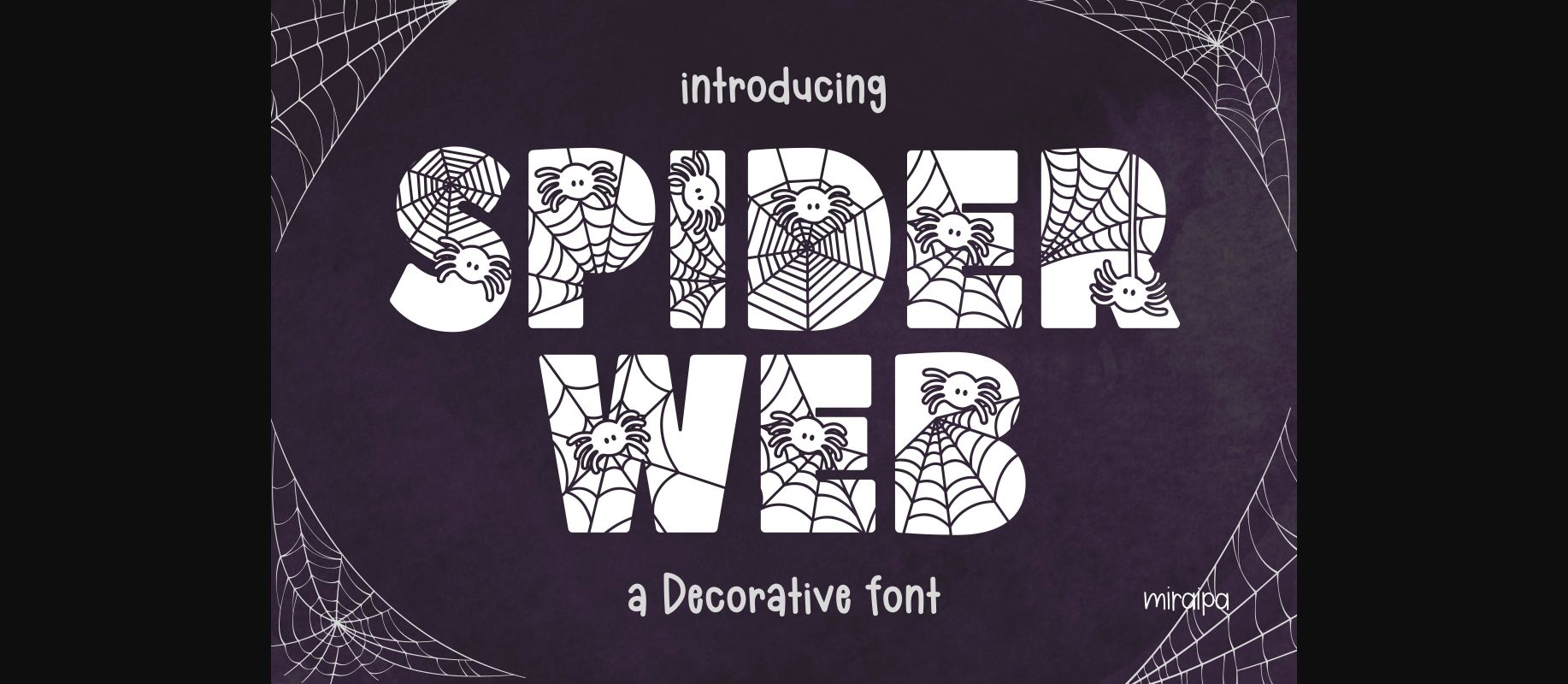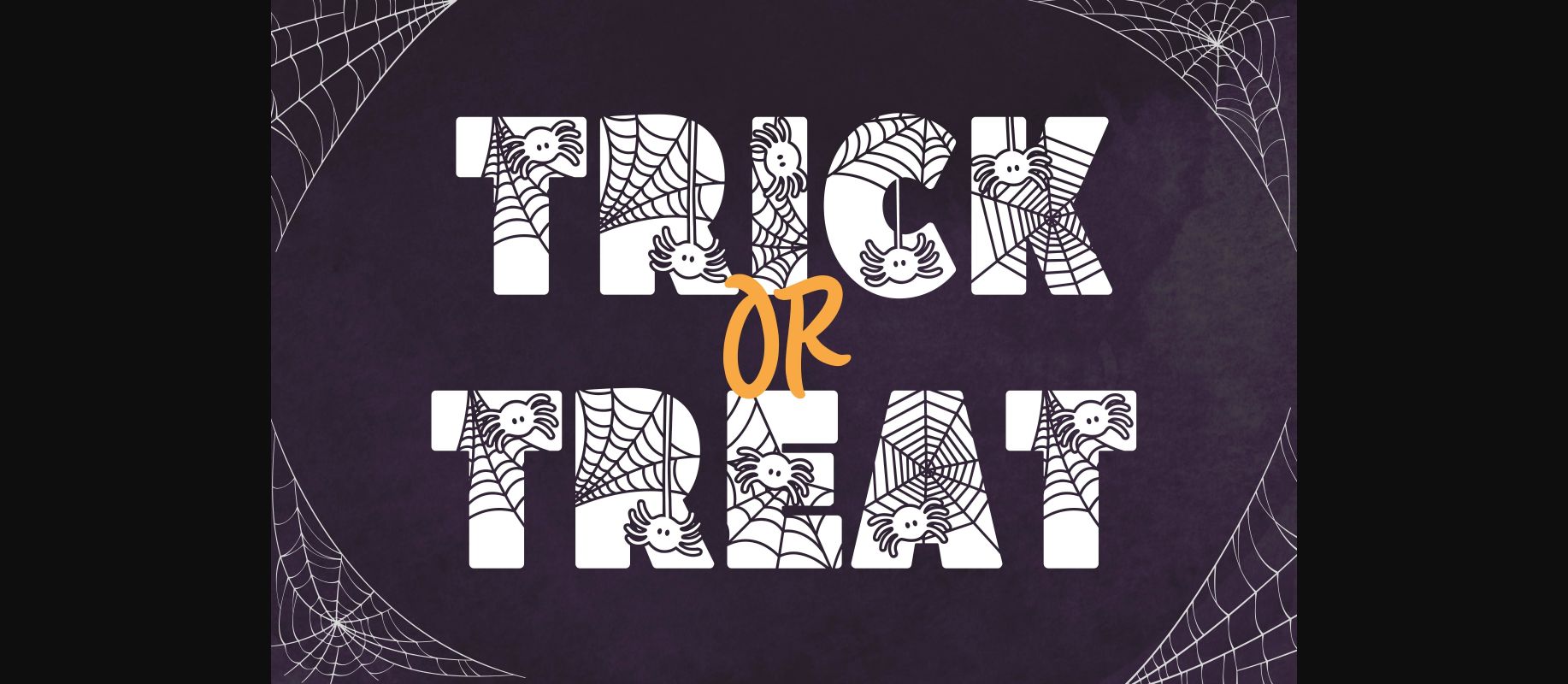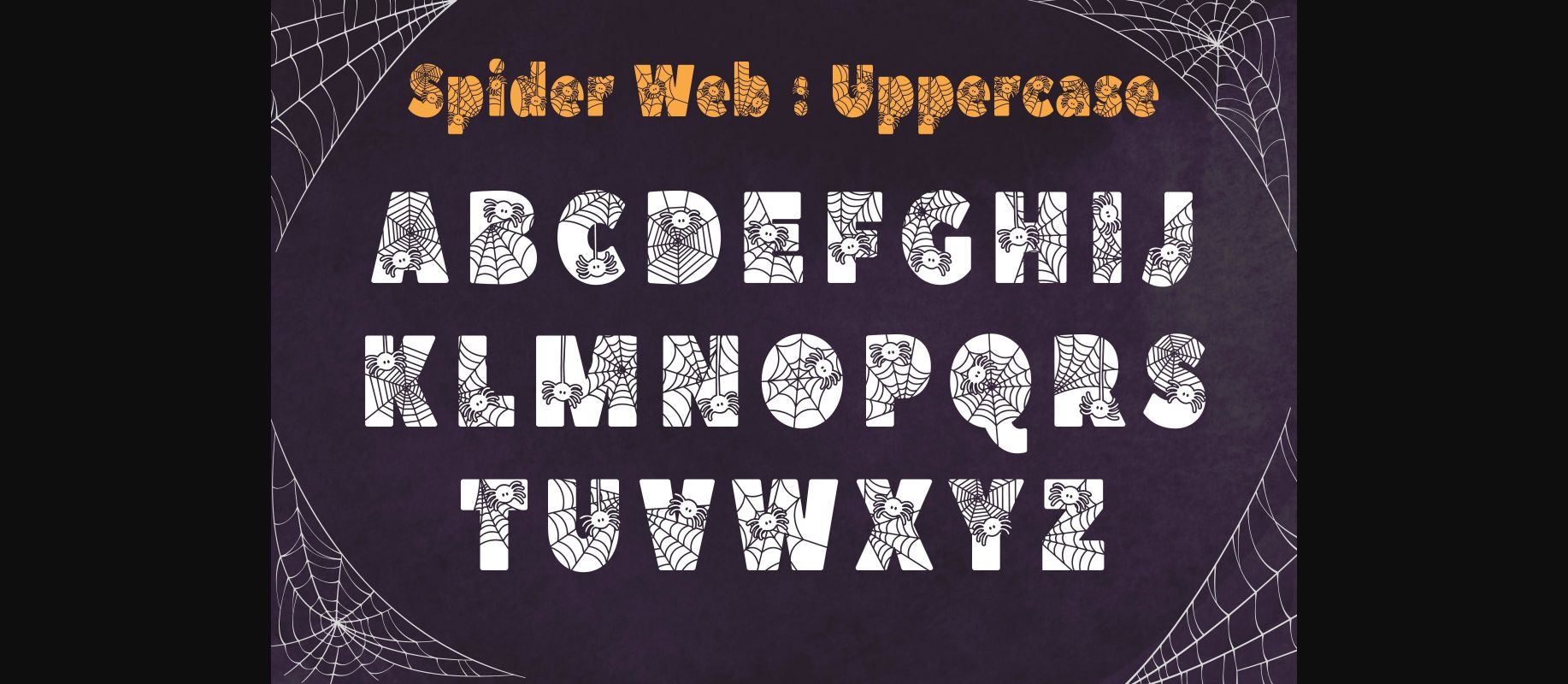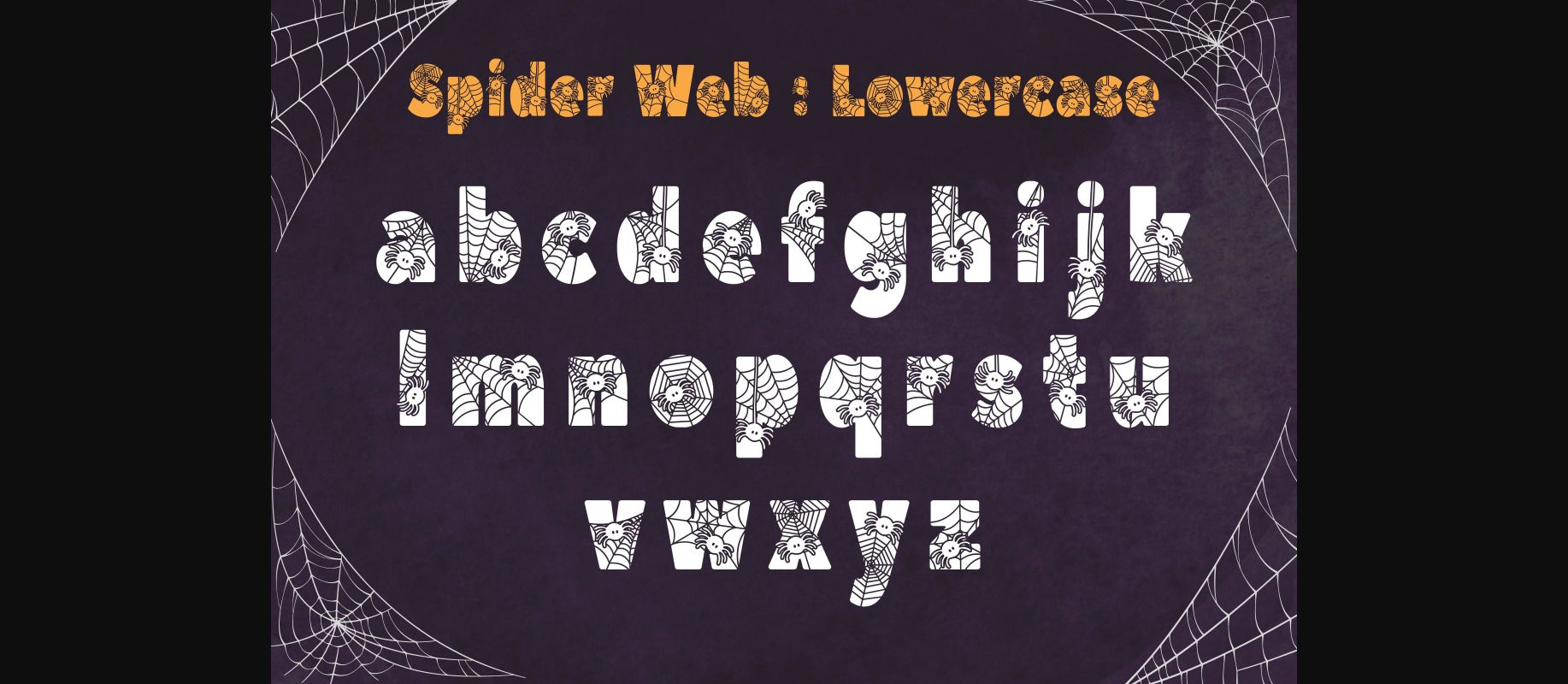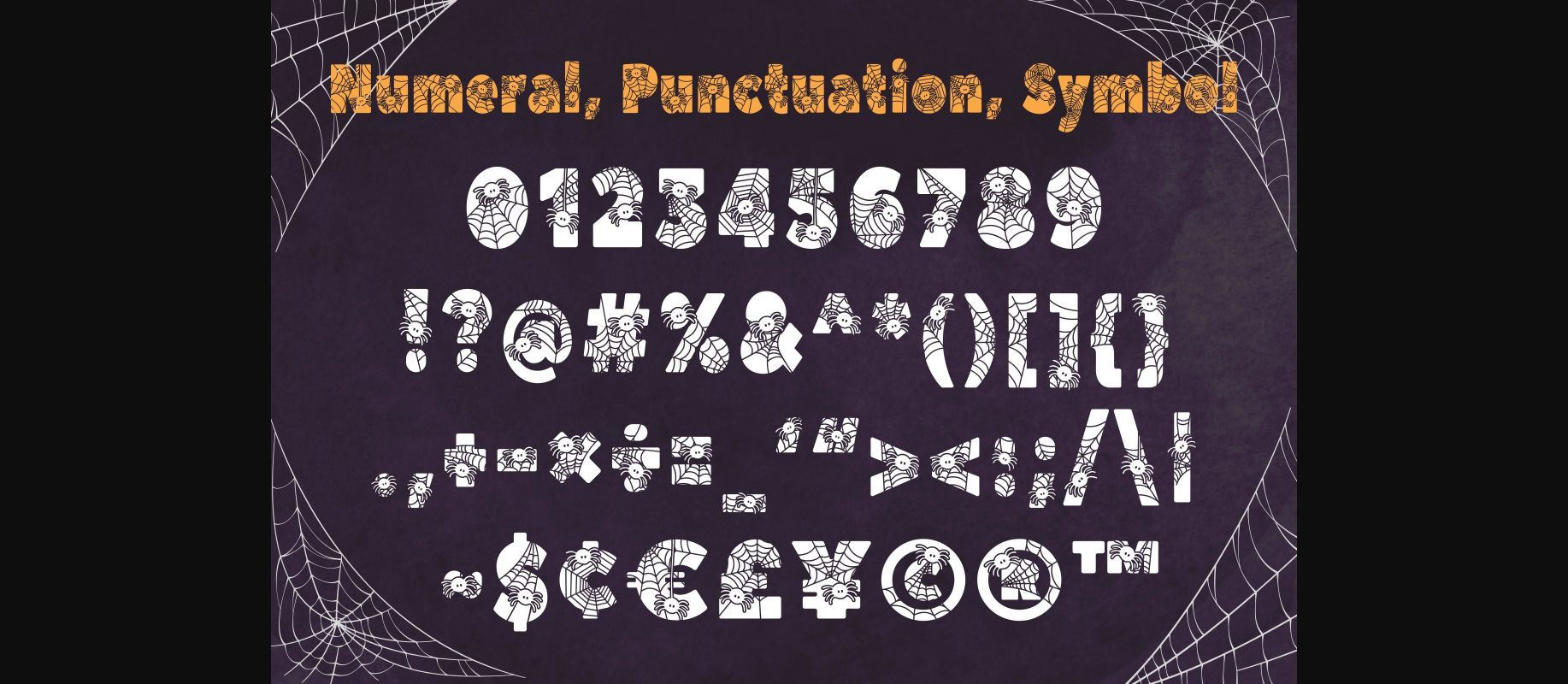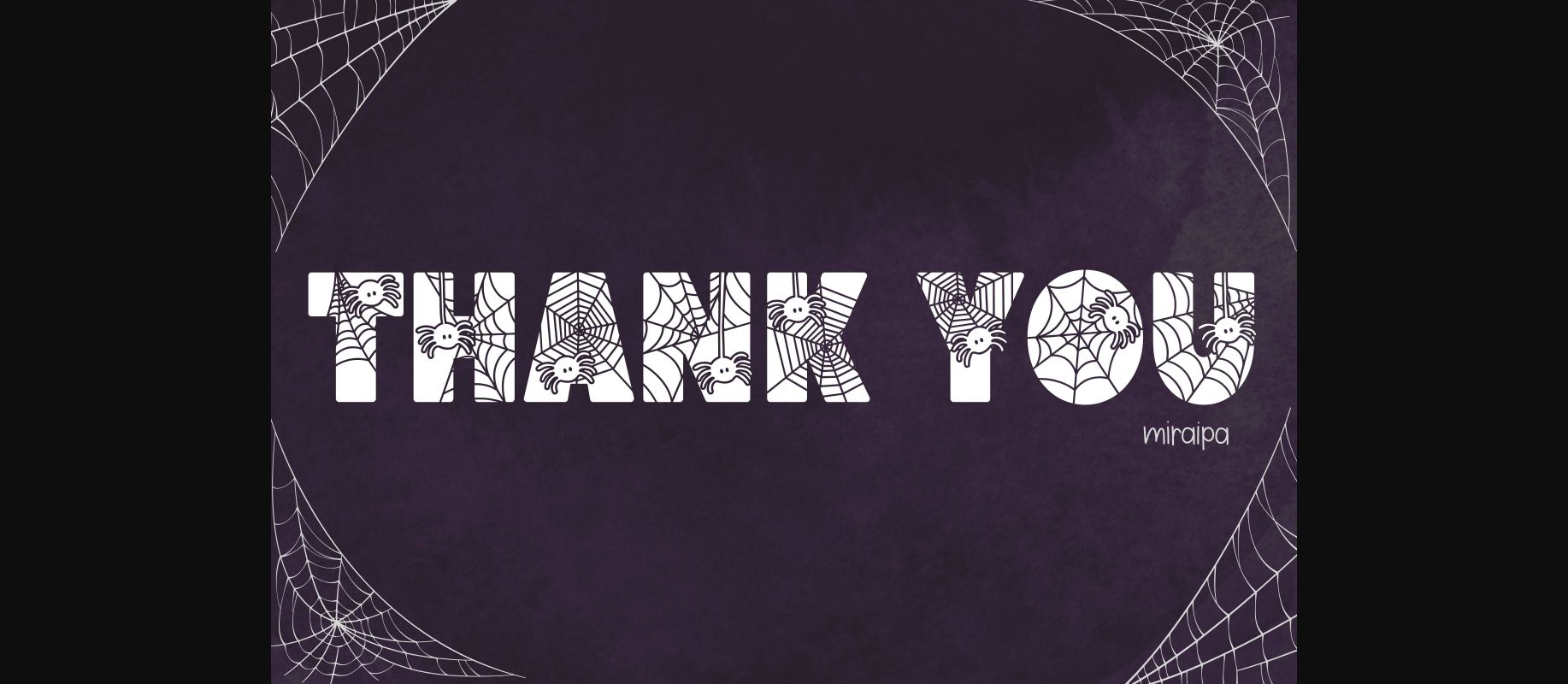
HomeDecorative FontsSpider Web Font Decorative Fonts Spider Web Font FacebookXPinterestWhatsApp 1 of 8 ... Spider Web Font Poster 2... Spider Web Font Poster 3... Spider Web Font Poster 4... Spider Web Font Poster 5... Spider Web Font Poster 6... Spider Web Font Poster 7... Spider Web Font Poster 8... About Spider Web Font Spider Web is a fun and spooky decorative font. Whimsical and a little mysterious, this font is perfect for all you Halloween crafts! DOWNLOAD NOW People also explored Mother Burger Font Alright Haha Font Milk Shake Font Sinthya World of Koka Font Lemonade Font Enjoy Font Daddy Somalia Font 315 0 TagsSpider Web Font Previous articleOrnament FontNext articleChristmas Gift Font LEAVE A REPLY Cancel reply Comment: Please enter your comment! Name:* Please enter your name here Email:* You have entered an incorrect email address! Please enter your email address here Website: Save my name, email, and website in this browser for the next time I comment. Personal Use Free Happy Santa Personal Use Free Read more about this font Hello December Personal Use Free Read more about this font Spectrashell Personal Use Free Read more about this font Braindly Personal Use Free Read more about this font BLOG Exploring Font Trends Shaping Communication in the Digital Era Fonts, like all design elements, are subject to trends. They play a crucial role in communicating a brand's personality,... How to Install and Use Fonts on Windows, macOS, and Web Projects The 10 Best Handwriting Fonts to Add Personality to Your Designs Best Fonts for YouTube Videos: Make Your Thumbnails Stand Out